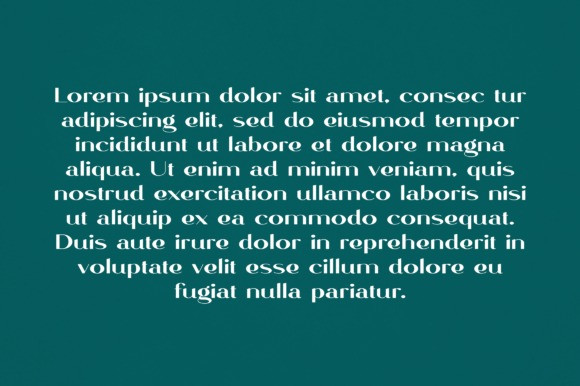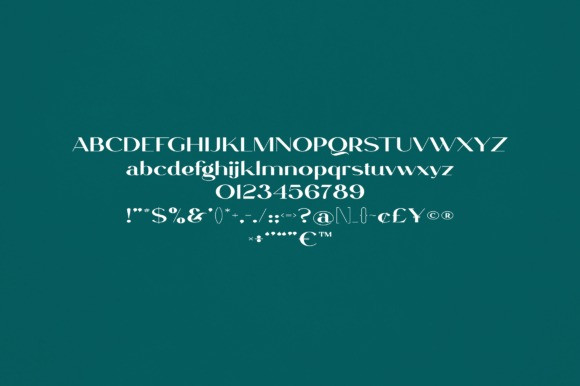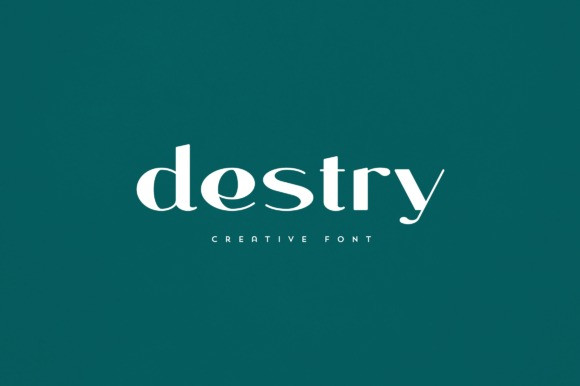
Destry Font
Destry Font is an elegant and versatile font that will make your typography truly unique! It will enchant every logo, branding, headline, or plain text!